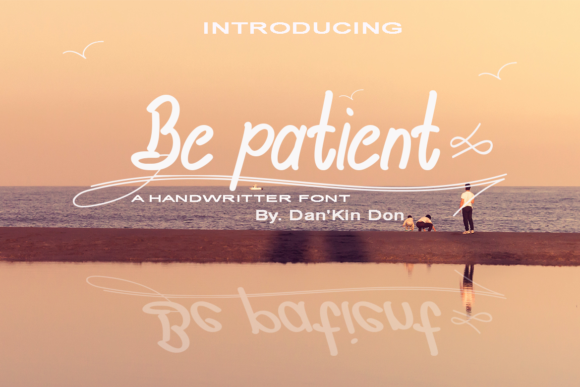
Behold the captivating allure of Be Patient, a script font that caresses your designs with a soft and elegant touch. Its delicate strokes, reminiscent of a graceful dance, infuse a touch of whimsy into every letterform. Crafted with precision by Danangdankin28, this font is a harmonious blend of creativity and functionality.
Immerse yourself in a world of digital artistry with Be Patient, the perfect font for fashionistas, lifestyle bloggers, and creative entrepreneurs alike. Its flowing lines evoke a sense of movement, energy, and elegance that will make your designs stand out. Unleash your inner creative and elevate your digital presence to new heights with this captivating font.
Step into the world of contemporary typography with Be Patient, the font that speaks volumes without uttering a single word. Its slender curves and elongated serifs add a touch of sophistication to your designs, while its playful nature keeps them from feeling too formal. Be Patient is the perfect choice for creating logos, branding materials, and social media graphics that demand attention.
Unlock the secrets of digital storytelling with Be Patient, the font that transforms your words into captivating narratives. Its elegant and stylish appearance captivates your audience, drawing them into your content with its timeless appeal. Whether you're crafting blog posts, articles, or ebooks, Be Patient ensures your message is delivered with grace and impact.